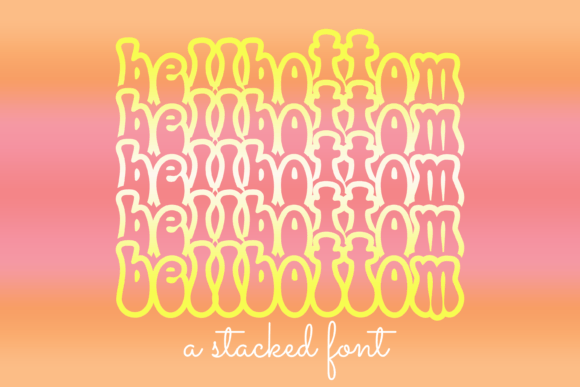
Embark on a whimsical journey with Bellbottom Font, the display typeface that ignites imagination and sparks creativity. Dive into a world of playful possibilities, where your designs dance with a vibrant energy that captivates hearts. Let Bellbottom be your artistic compass, guiding you through enchanting realms of design, where every letter becomes a vibrant stroke of genius.
With its irresistibly charming curves and lively personality, Bellbottom Font transforms ordinary words into extraordinary expressions. Embrace the childlike wonder within you, and let your designs radiate with a joyful spirit that's sure to leave a lasting impression. Bellbottom is not just a font; it's a gateway to a world where creativity knows no bounds, where your imagination takes center stage, and where every design becomes a captivating masterpiece.
Step into a realm where fonts come alive, where Bellbottom's playful energy dances across your designs, captivating audiences with its infectious charm. Its playful curves and energetic strokes create a visual symphony that resonates with joy and wonder. Unleash your creativity, let your imagination soar, and watch as Bellbottom transforms your designs into enchanting works of art.